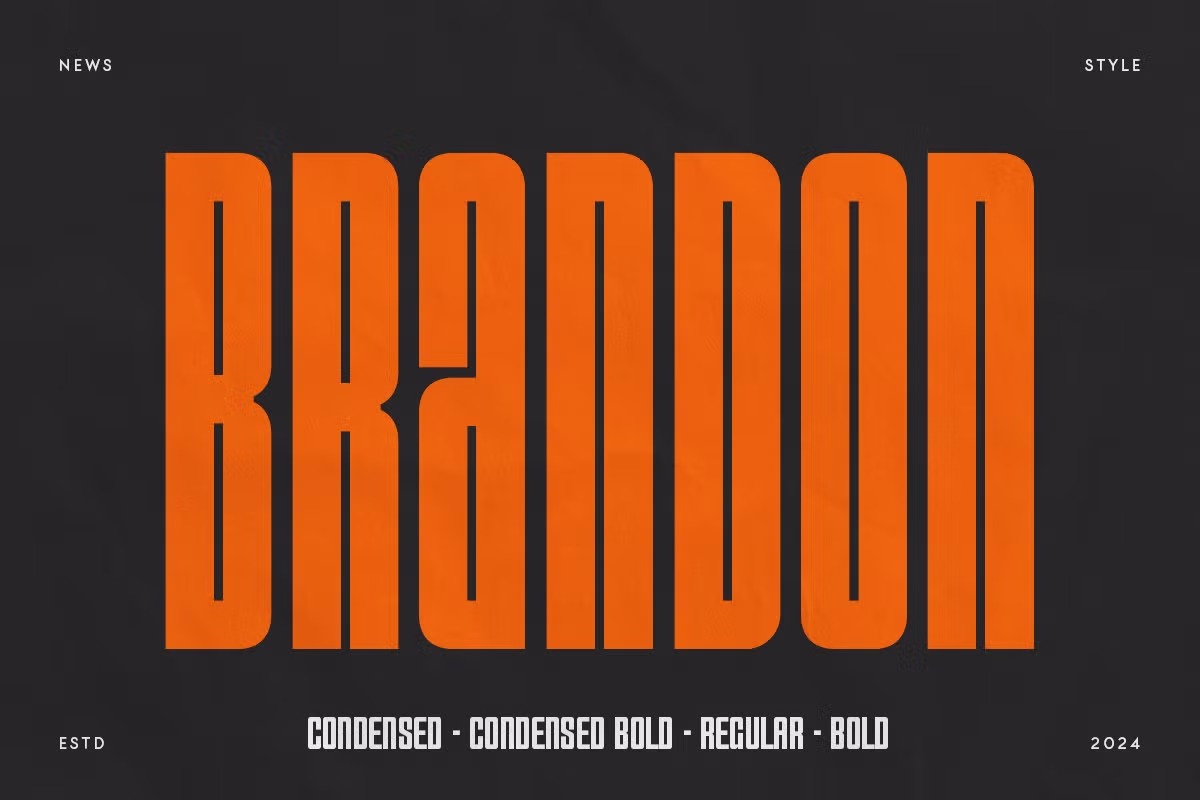
Brandon - Condensed Headline Font
Professional condensed headline font family designed to maximize impact while saving space in your modern designs. Brandon delivers a unique condensed design that's perfect for professional headlines and modern branding projects. This versatile font family provides an efficient solution for designers who need maximum visual impact in minimal space, while maintaining excellent readability and contemporary appeal. Brandon Condensed Headline Font Family includes: 4 distinct weights for unlimited de...